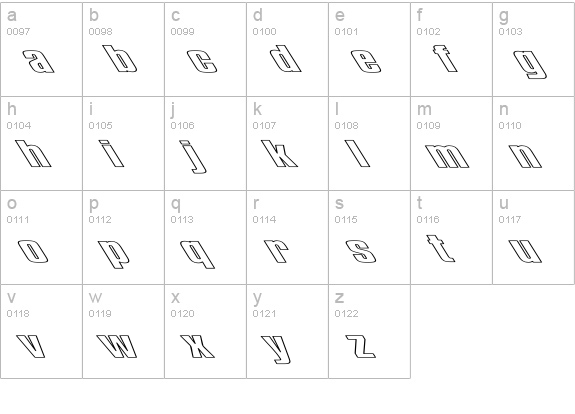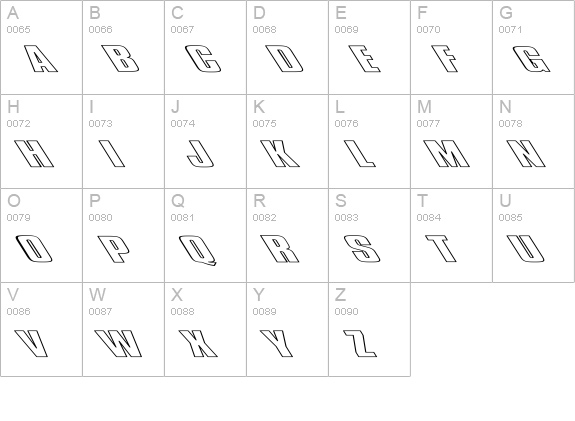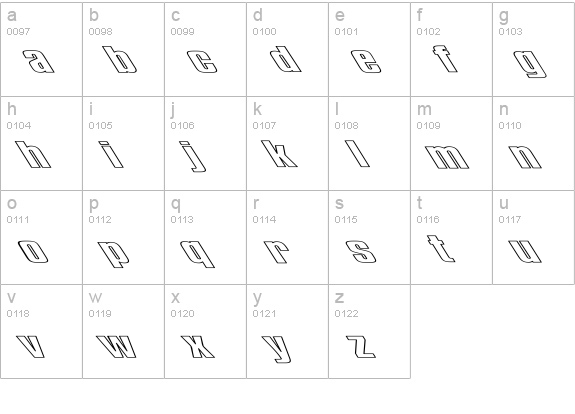
Introducing Trance font, a mesmerizing and captivating typeface that will transport your designs to a whole new level of enchantment. With its sleek and fluid lines, Trance font exudes an aura of tranquility and harmony, making it the perfect choice for any project that seeks to convey a sense of elegance and sophistication. Designed with meticulous attention to detail, Trance font is a testament to the seamless fusion of modern aesthetics and timeless elegance. Its sleek and versatile nature allows it to effortlessly adapt to a wide range of design styles, whether it be for branding, advertising, editorial, or even personal projects. But what truly sets Trance font apart is its accessibility. We believe that every designer should have access to high-quality fonts without breaking the bank, which is why Trance font is freely available to download at FontsMarket.com. Now, you can elevate your designs without any constraints, and let your creativity flow freely. Featuring a vast array of characters, including uppercase letters, lowercase letters, numerals, and punctuation marks, Trance font provides you with the tools to create stunning and impactful designs. Its legibility and clarity ensure that your message is conveyed effortlessly, while its subtle nuances and artistic flair add an extra layer of depth and sophistication. Whether you're working on a logo design, a website layout, or a poster, Trance font will effortlessly captivate your audience and leave a lasting impression. So why wait? Elevate your designs to new heights with Trance font, the ultimate embodiment of elegance and allure. Download it for free today at FontsMarket.com and unleash your creativity like never before.